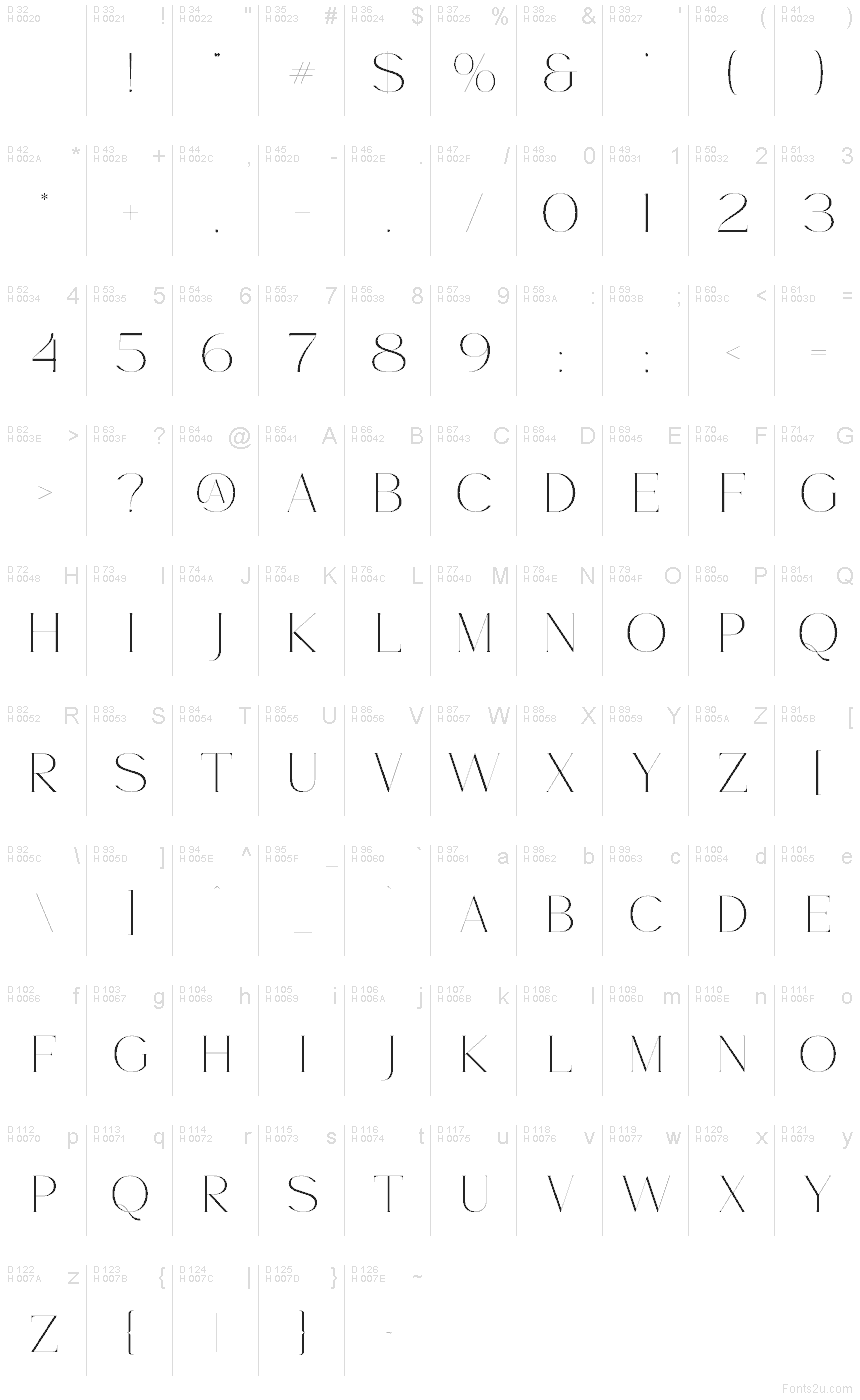
Noracle
Noracle font by Storytype Studio is a light serif font with minimalist characters, a condensed arrangement, and medium-height capitals. Horizontal strokes are tapered to create simple yet balanced elements. Sliding serifs decorate both lowercase and capital characters present that sleek elegant touch to designs.